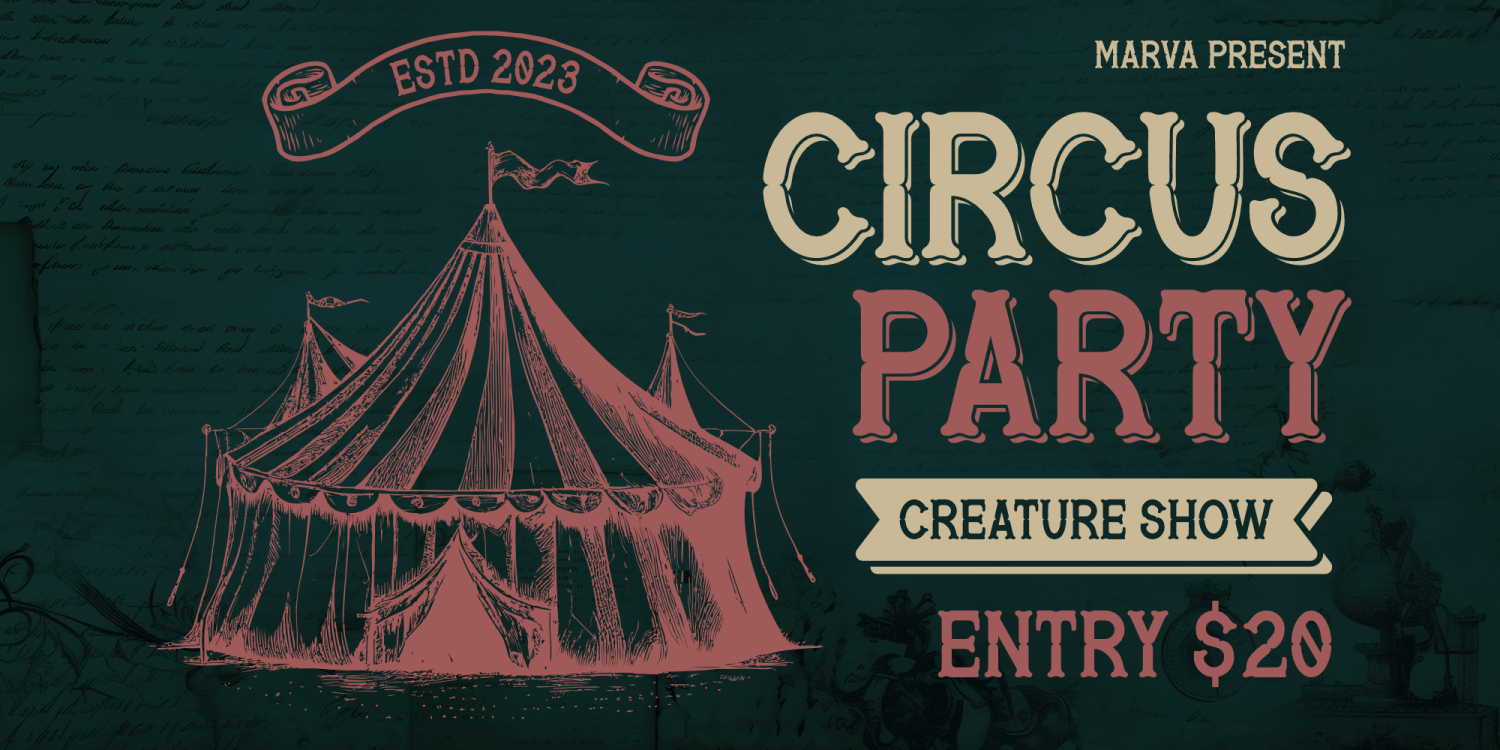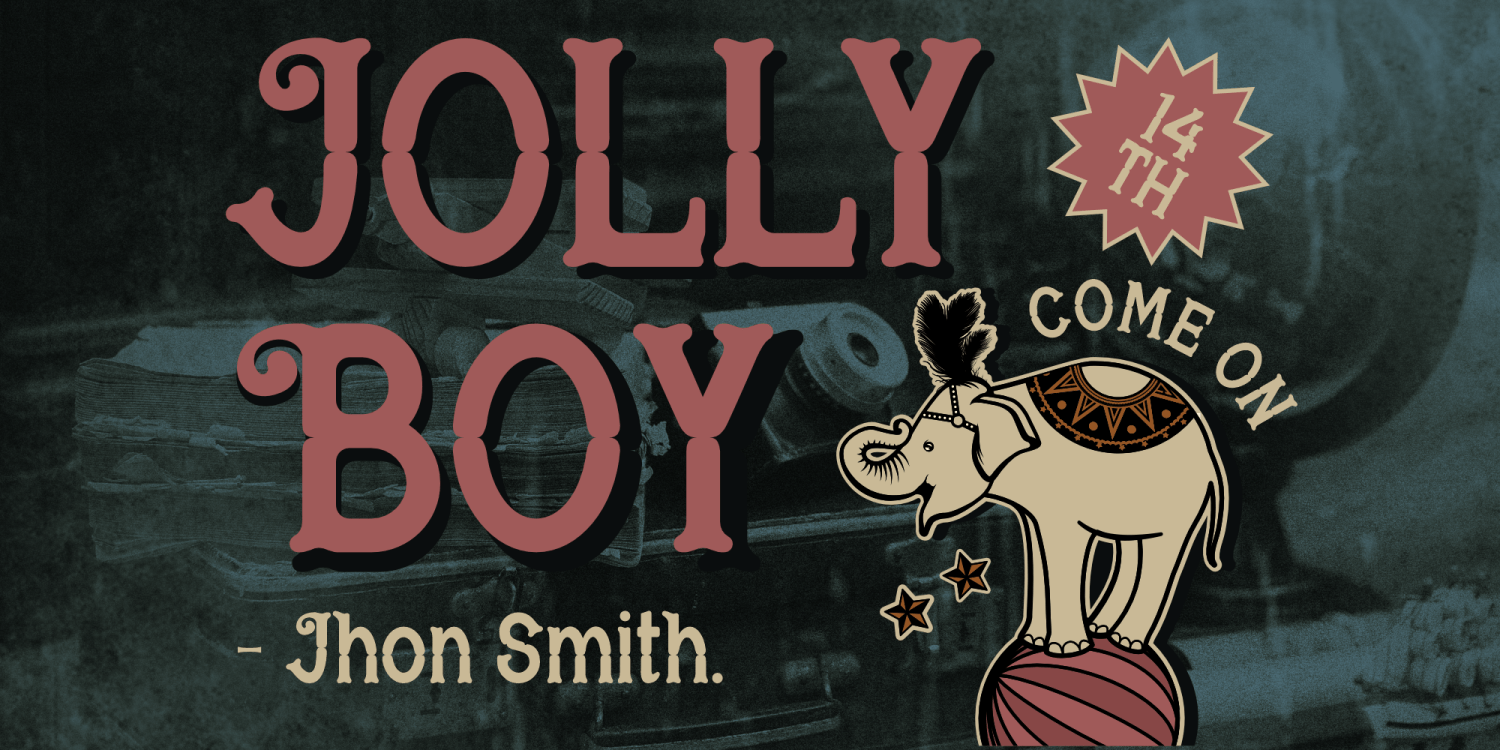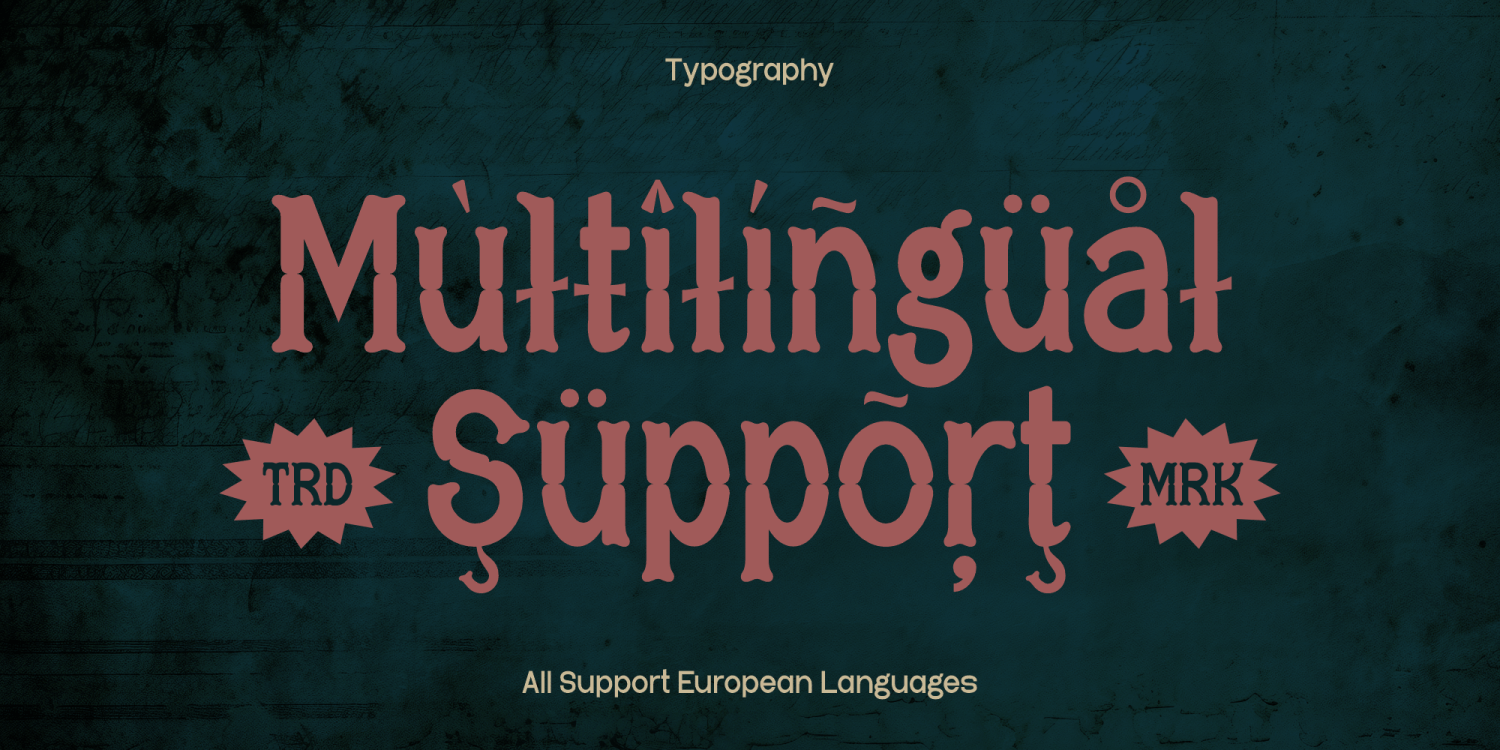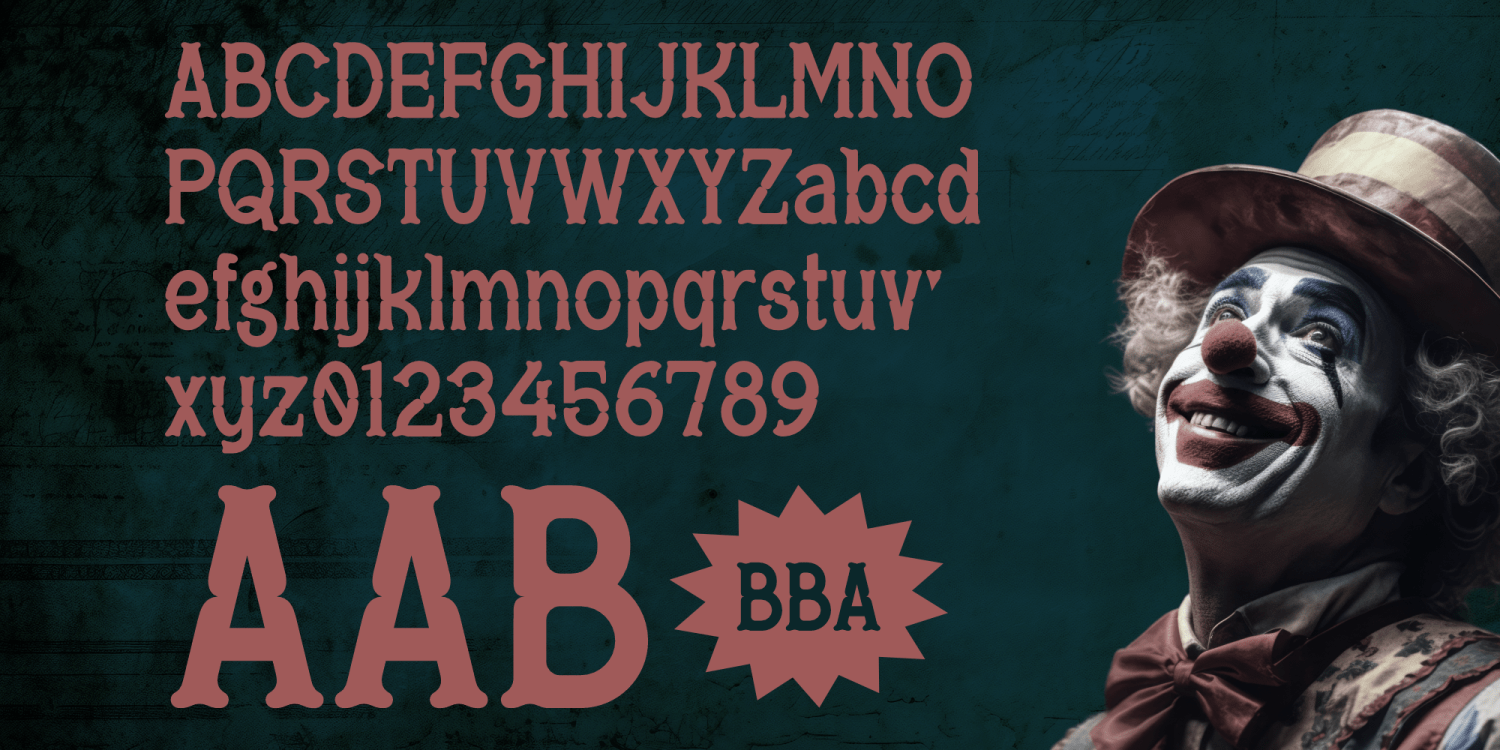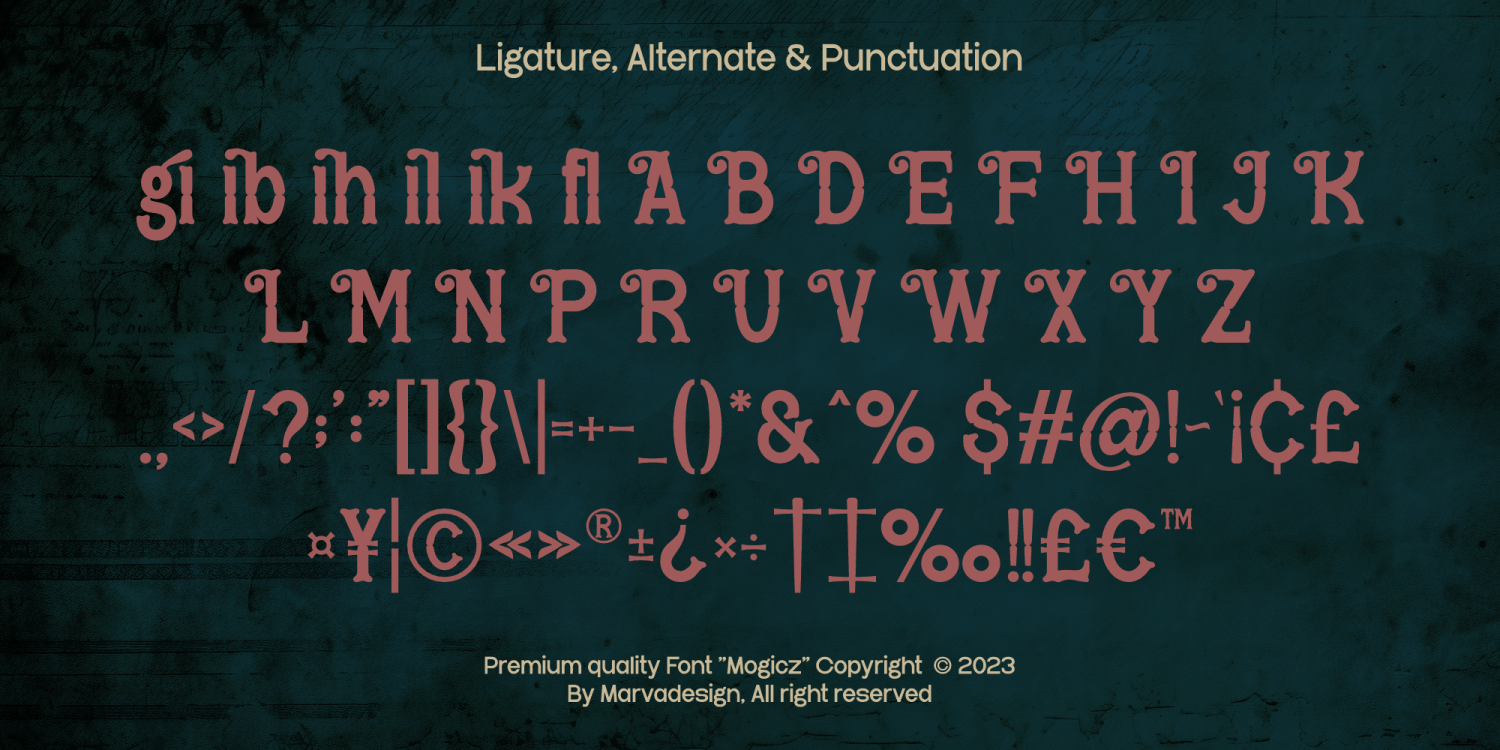
Mogicz
Font Family by Marvadesign
Mogicz is an old-fashioned serif display font. It has decorative details and is great for making text stand out, like in titles or logos. Its classic style adds an elegant and traditional touch to your designs.